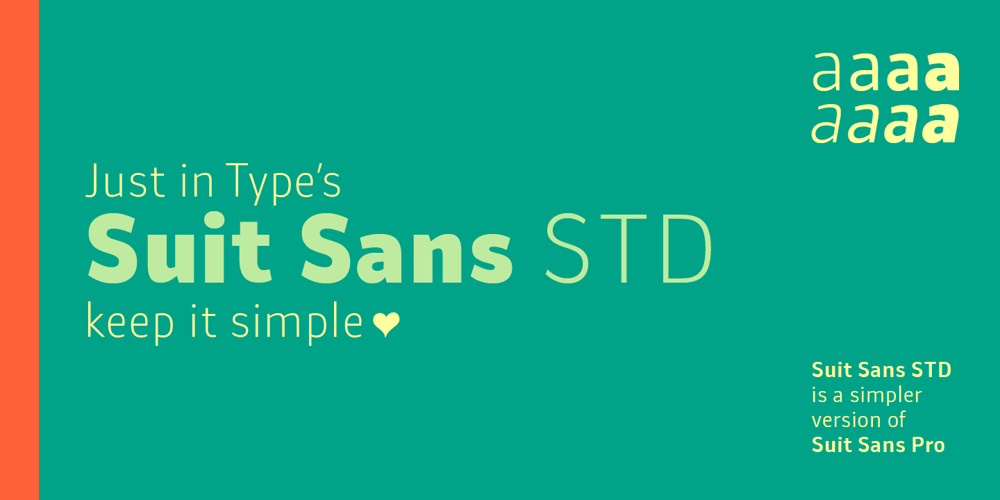
Suit Sans STD
Suit Sans STD font
Suit Sans STD Font Family was designed by Diego Maldonado and published by Just in Type. Suit Sans STD contains 8 styles and family package options. Suit Sans ​STD is a typeface designed for multi-purposes with ​4 weights plus matching​ italics. The set of ​554 glyphs embraces a​ll European languages​, ​and it’s perfect for branding, interfaces and everything else you could create on large and small sizes​. ​But if Suit Sans STD is not enough for you, take a look at Suit Sans Pro with extended weight range, character set and more cool features.